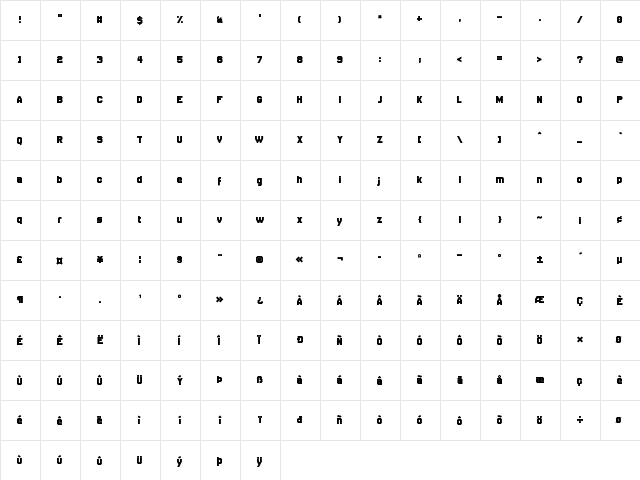
Disparador Regular
| Designer | Tobias Sommer |
Design Context for Disparador Typeface
Disparador offers clean, dependable letterforms without strong stylistic allegiance, making it a practical choice for designers who need flexibility.